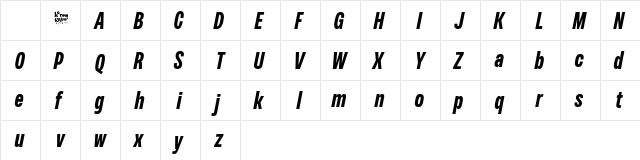
Variera DEMO Bold is a composed and adaptable typeface that performs quietly and consistently across a wide range of design contexts. The slanted form adds forward momentum and visual energy. Its bold stroke weight gives it real presence on the page.
Pro Tip: Use Variera DEMO Bold for emphasis, pull quotes, and subheadings where its slanted energy can add rhythm to the layout.